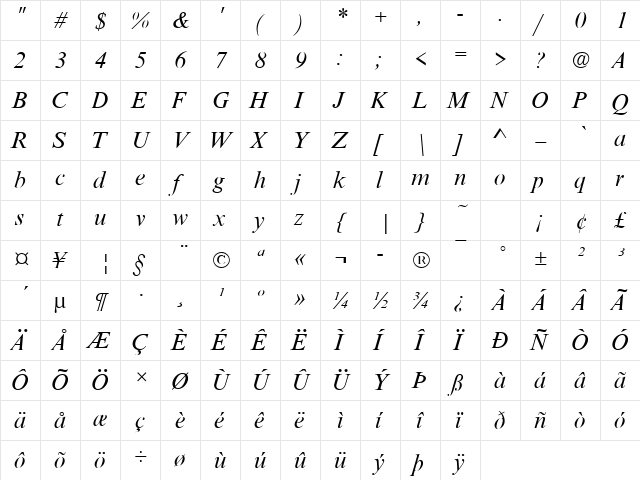
Nimbus Roman Becker No9T Italic
Design Context for Nimbus Roman Becker No9T Typeface
Nimbus Roman Becker No9T offers clean, dependable letterforms without strong stylistic allegiance, making it a practical choice for designers who need flexibility. The dynamic lean of this cut emphasises speed and emphasis in any layout.
Pro Tip: Try Nimbus Roman Becker No9T for annotation and caption copy alongside an upright companion — the contrast in angle creates a dynamic but ordered typographic system.